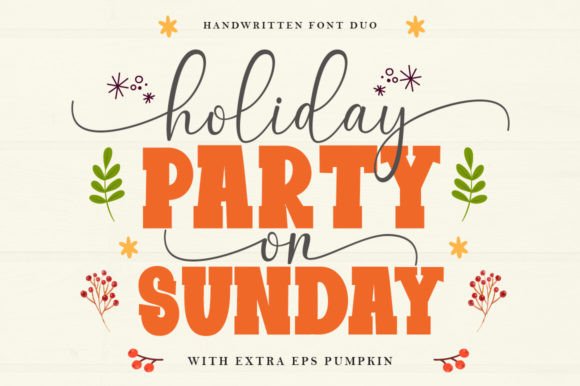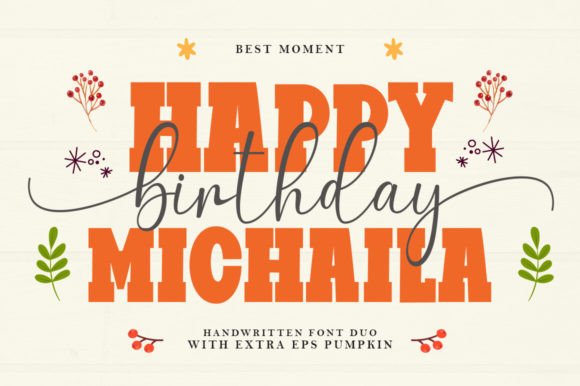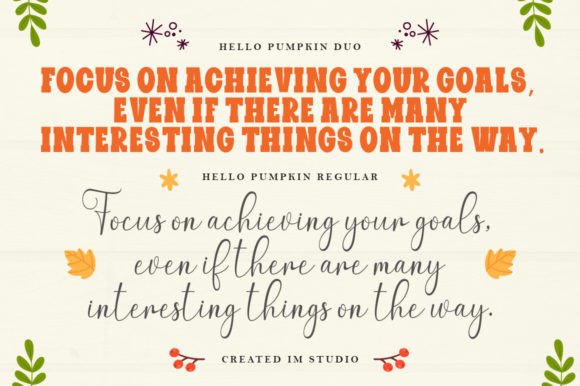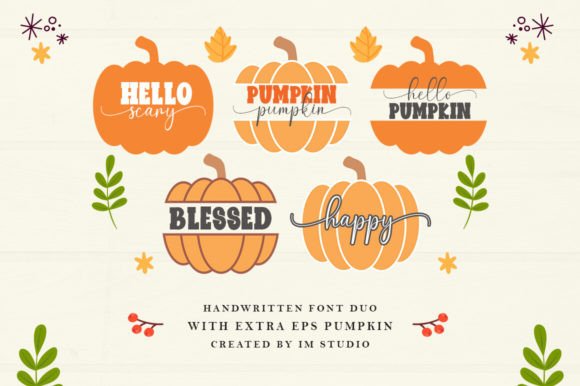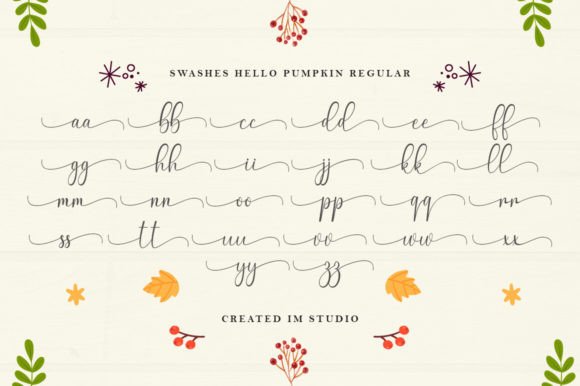
Hello Pumpkin Duo Font
Experience the enchanting allure of Hello Pumpkin Duo, a unique marriage of sans serif and script. This multifaceted font duo caters to a wide range of applications, adding a dash of romance from anything including sentimental greeting cards to eye-catching titles. Imbued with PUA encoding, Hello Pumpkin Duo avails an array of glyphs and ligatures, guaranteeing an effortless blend with any design landscape. Unleashing your creative potentials, this font seamlessly gels into every aspect of your illustrative needs, making it a true favorite amongst designers.